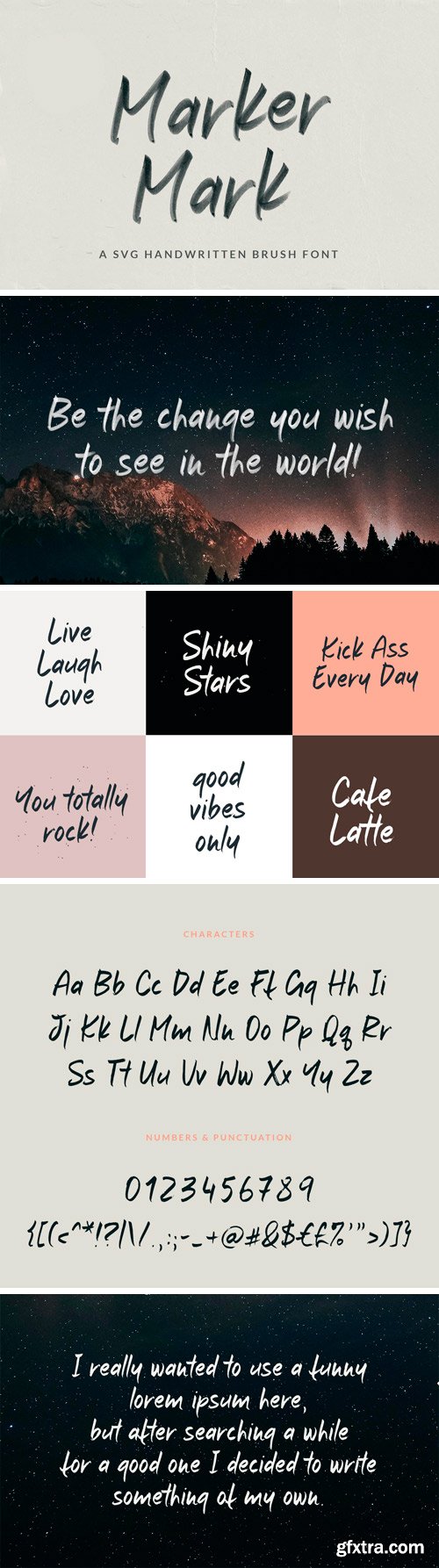
Marker Mark SVG Font
Marker Mark is my first SVG font. Now I think you are wondering what a SVG font is. It’s that kind of font that preserves color and transparency. Marker Mark is made by using a marker and a tone of paper, than scaned everything and exported to photoshop. There everything is cleaned and with the help of Fontself the SVG font is created.